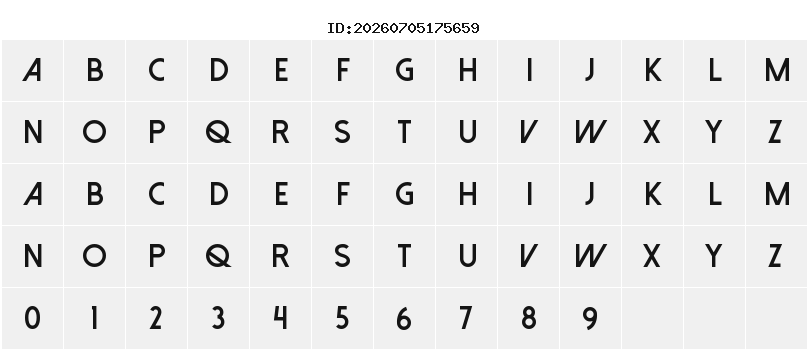
Dolce Vita Heavy Preview
Dolce Vita Heavy.ttf is a modern, elegant sans-serif font designed for ultimate readability and visual harmony. Perfect for branding, headlines, web design, and print materials.